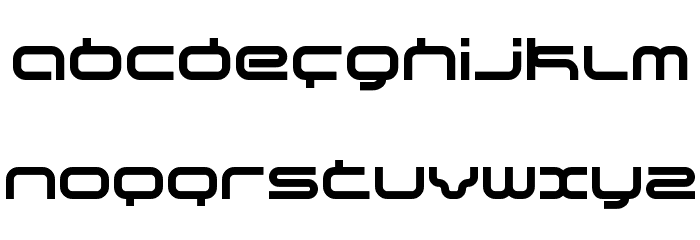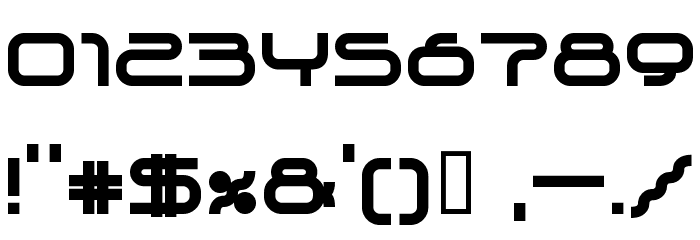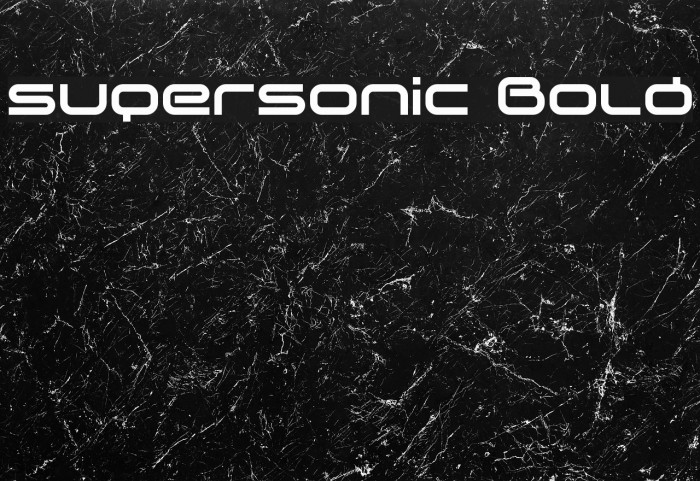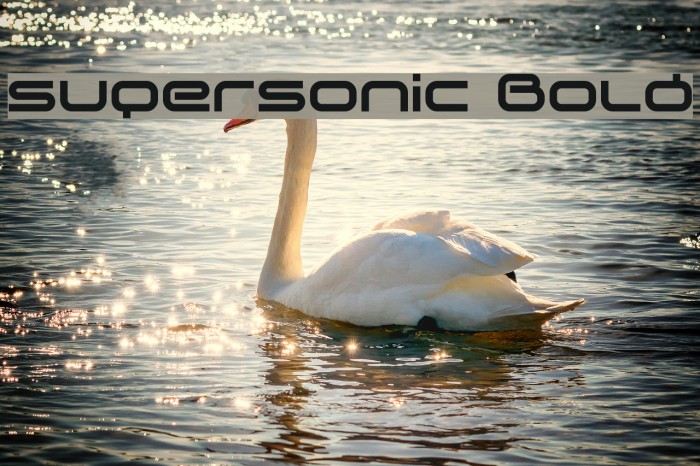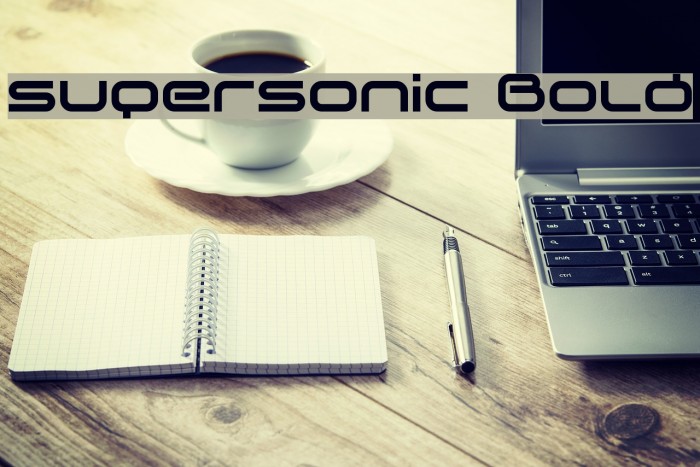
supersonic Bold Font
This font features a futuristic and geometric design, characterized by its bold and blocky letterforms. The characters are constructed with a consistent stroke width, giving it a uniform appearance. The rounded edges and unique cutouts within the letters add a modern and tech-inspired aesthetic. The font maintains a balanced structure, making it visually appealing for digital and print media. It includes a full set of uppercase and lowercase letters, numbers, and a variety of special characters, ensuring versatility for various design needs.
A bold, futuristic font with geometric and tech-inspired design.
- Proposed Projects: Ideal for technology branding, video game titles, sci-fi movie posters, and modern digital interfaces.
- Use Case: Headlines, Logos, Digital interfaces